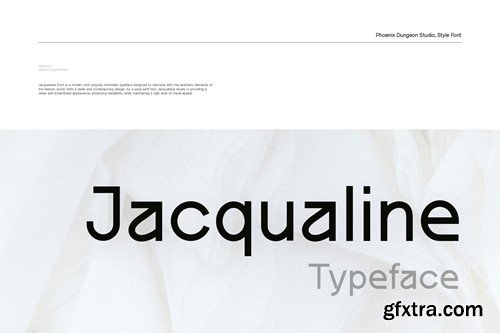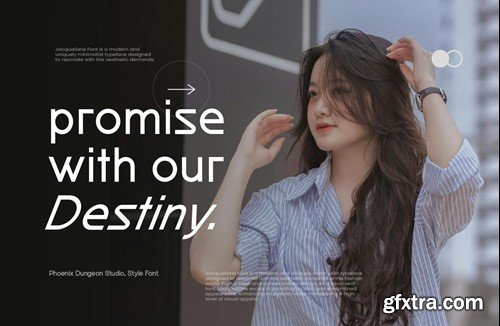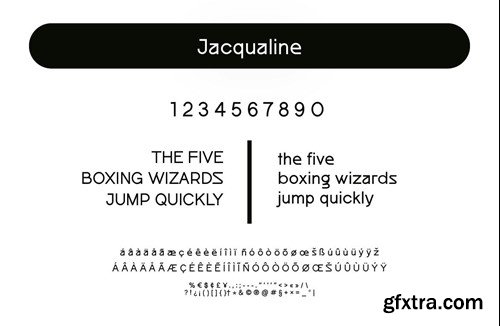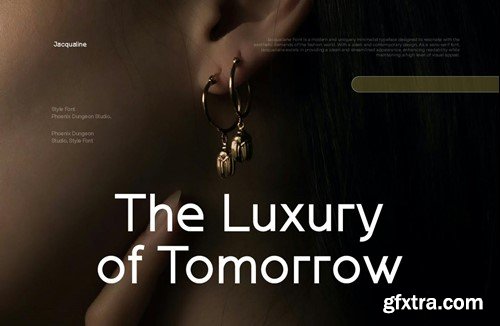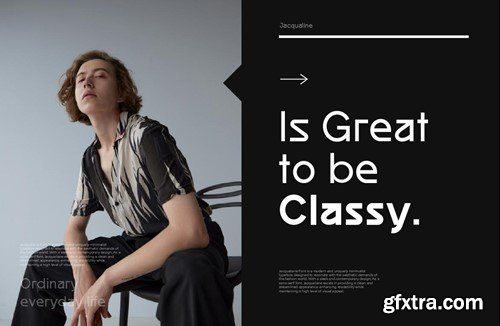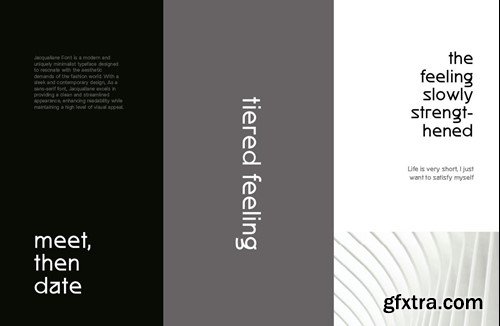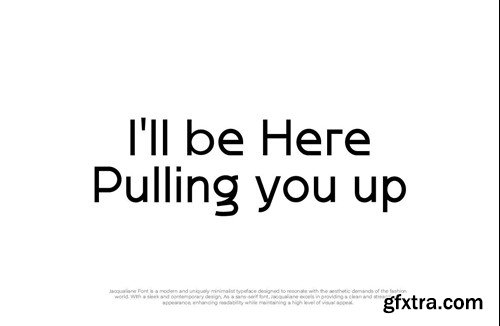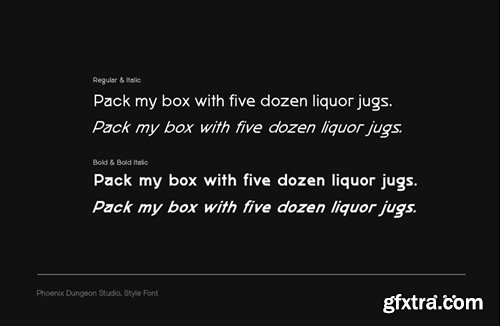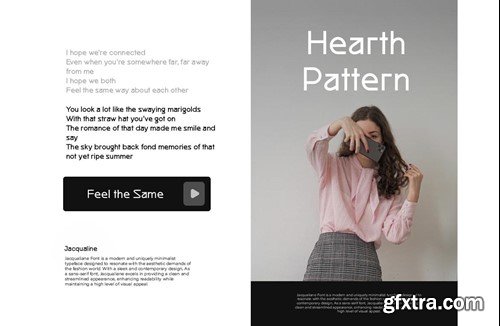
贾卡琳字体G6CH9VC
Jacqualine Typeface G6CH9VC
Jacqualine Typeface
Jacqualiane Font is a modern and uniquely minimalist typeface designed to resonate with the aesthetic demands of the fashion world. With a sleek and contemporary design, As a sans-serif font, Jacqualiane excels in providing a clean and streamlined appearance, enhancing readability while maintaining a high level of visual appeal.